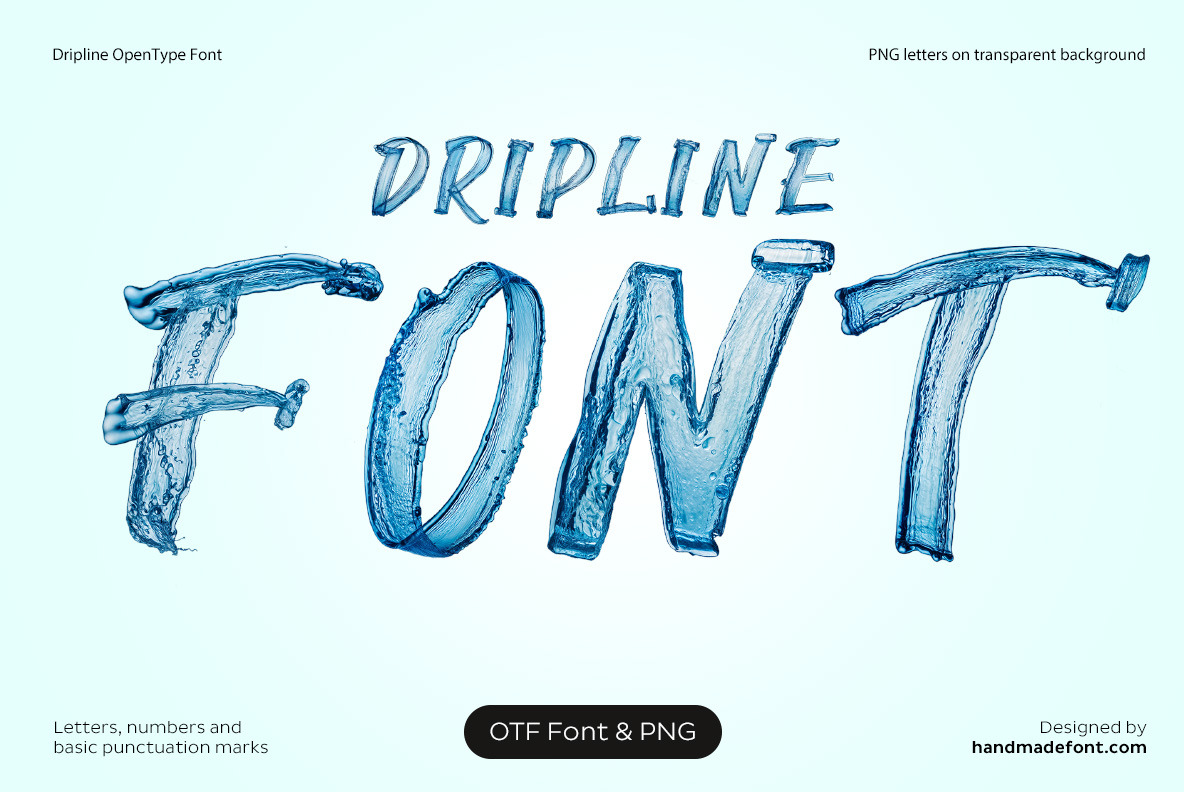
Dripline Font
Dripline Font is a refreshingly fluid typeface that captures the essence of water in motion. Each letter appears as though sculpted from pure, flowing liquid—complete with drips, splashes, and dynamic curves. This unique font brings a sense of cool clarity, making it perfect for eco-friendly designs, aquatic themes, or projects that aim to convey freshness, purity, and creativity. Its transparent, glossy appearance mimics the movement and texture of real water, creating a visually stunning effect. Ideal for branding, posters, packaging, and digital art, Dripline Font adds a wave of originality to any visual concept. Dive into creativity with this splashy style!
A high definition OpenType Font. Contains uppercase characters, numerals and basic punctuation. (Draw height roughly 800 pixels). All letters and glyphs that comprises this font you can see on the preview.
- Letters : A B C D E F G H I J K L M N O P Q R S T U V W X Y Z
- Numbers : 0 1 2 3 4 5 6 7 8 9
- Others : ! ? - . ' $ € % & #